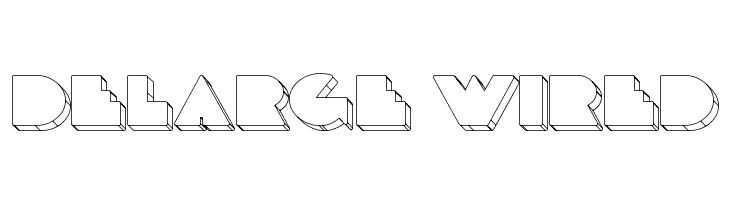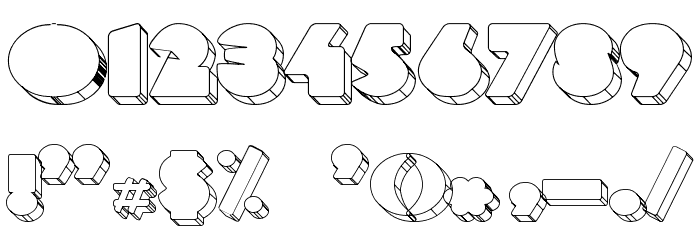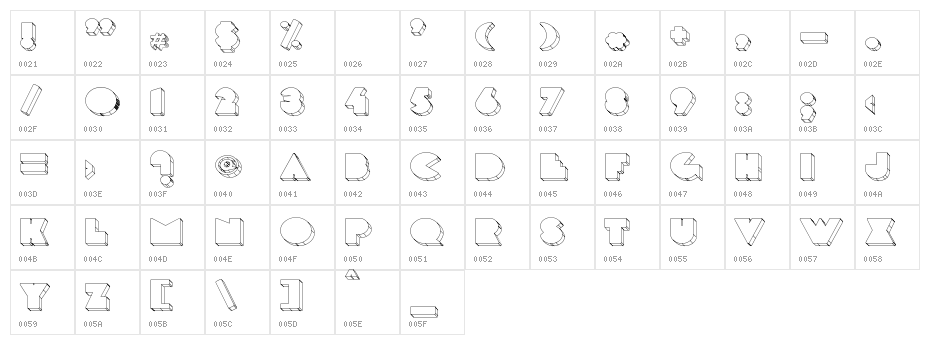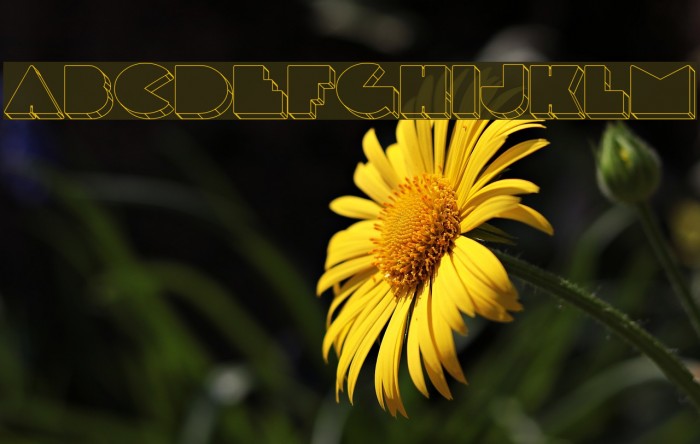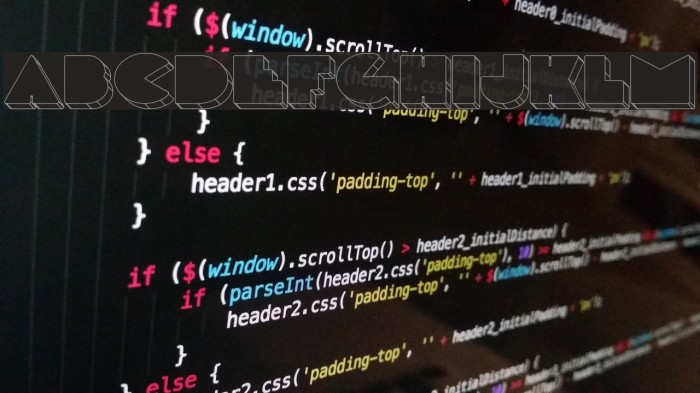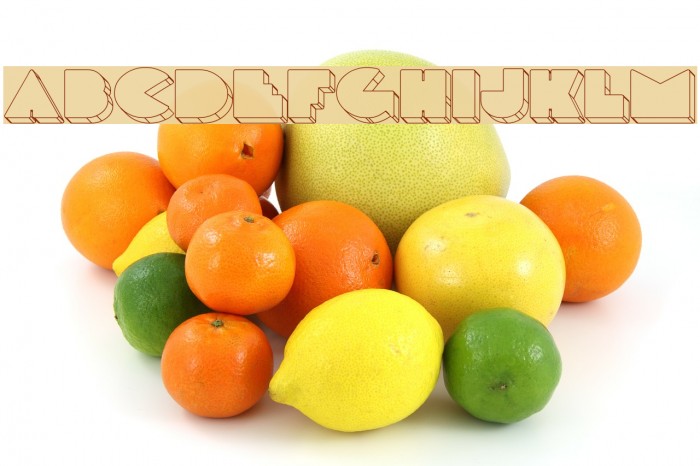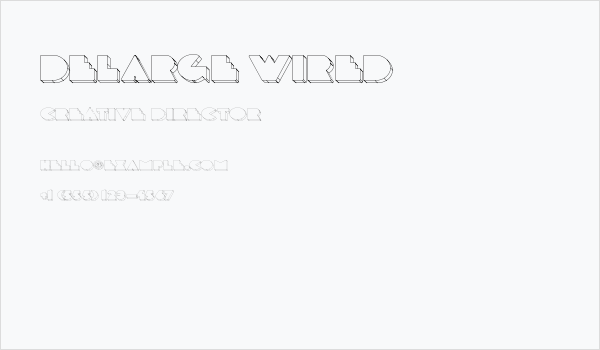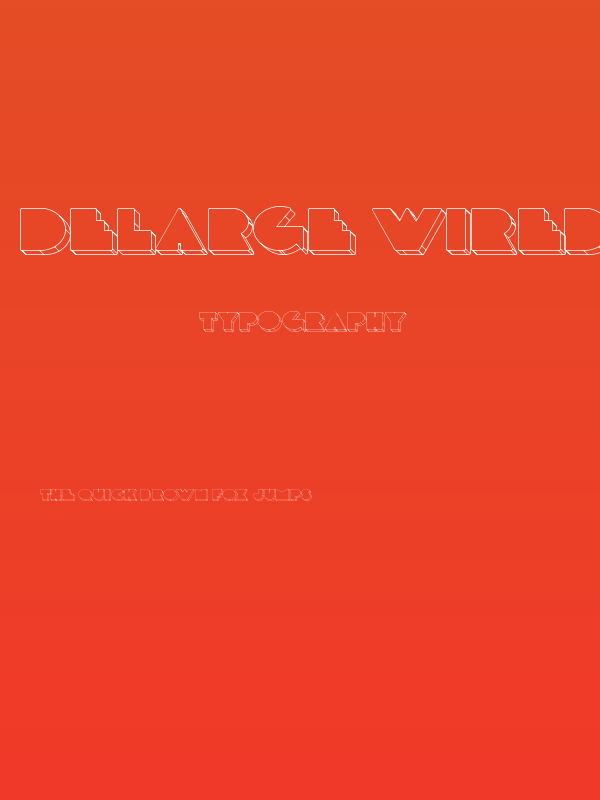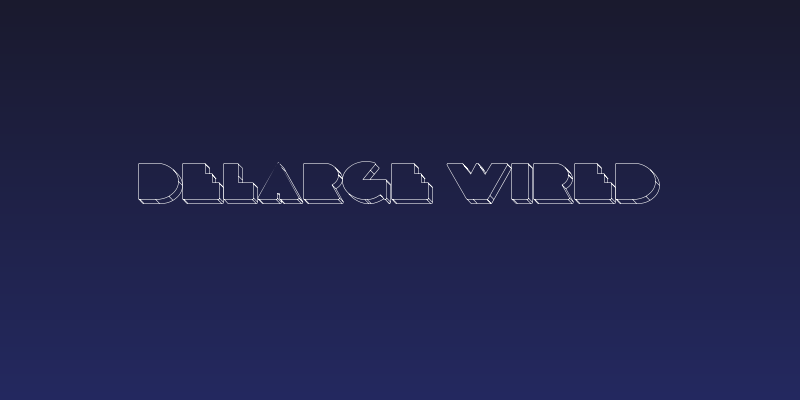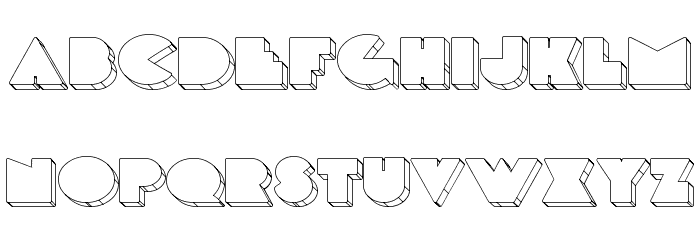
DeLarge Wired Font
DeLarge Wired Description
This font features a bold, three-dimensional design with a wireframe aesthetic. The characters are constructed with outlines that create a sense of depth and volume, giving them a futuristic and industrial feel. The uppercase and lowercase letters maintain a consistent geometric structure, while the numbers and special characters follow the same design principles. The font's unique style makes it stand out, with each character appearing as if it is part of a complex mechanical structure. The wireframe look is both modern and retro, reminiscent of early computer graphics and digital art.
| Proposed Projects | Ideal for projects that require a modern, tech-inspired look, such as video game titles, sci-fi movie posters, or digital art exhibitions. |